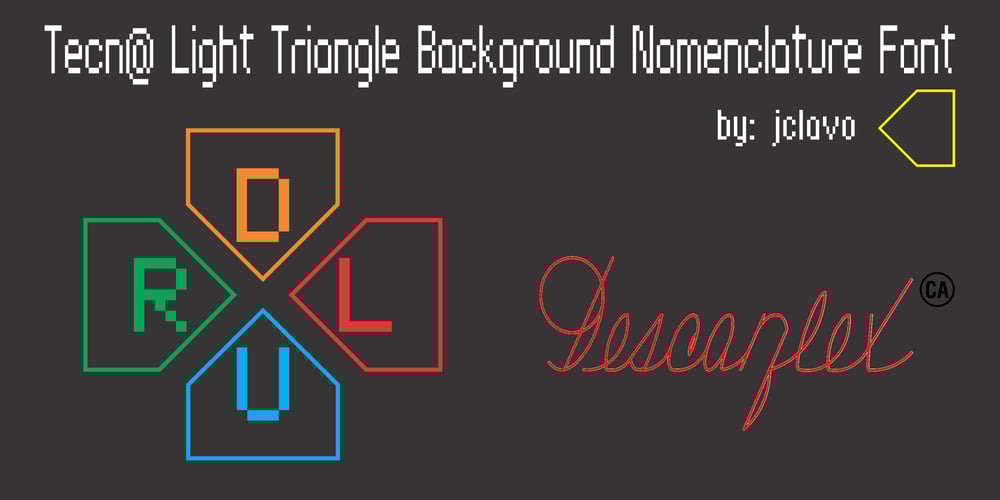
Tecna Light Right Triangle BNF Font Family was designed by Jorge Clavo and published by Descarflex. Tecna Light Right Triangle BNF contains 1 styles and family package options. The Tecn@ Dark&Light Triangle Background Nomenclature Font family is differentiated by the direction of the triangle tip in the 4 cardinal points. The family were designed to head, enumerate, indicate or highlight writings or design plans, for this reason, the characters are available only in capital letters and some signs or symbols that can serve such purposes. A triangle or empty character is included so that the user can use it overlaying any character of his choice or to be used alone.